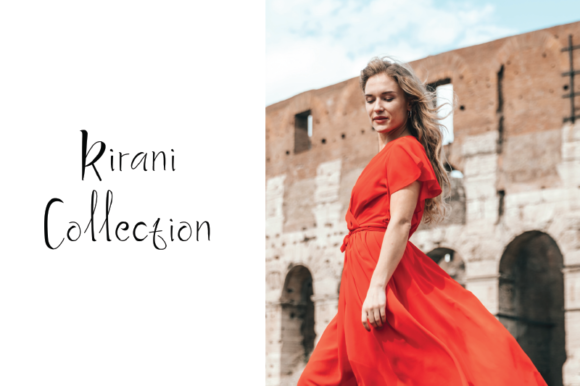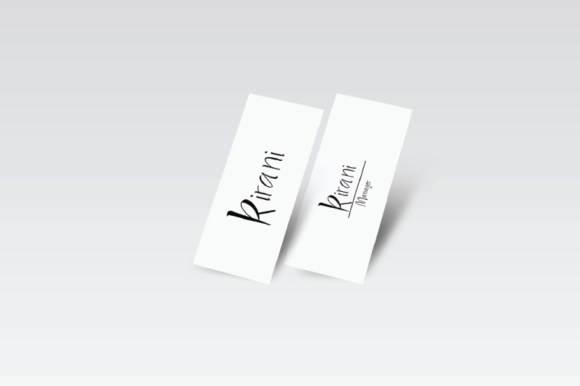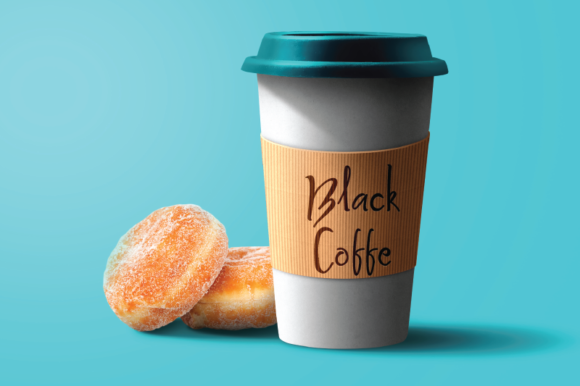
Introduction to Kirani Font
Kirani is a cool and fun script with an authentic vibe.
Key Features of Kirani Font
Why Choose Kirani Font?
Kirani Font offers exceptional quality and versatility, making it a valuable addition to your design toolkit. Whether you’re creating for personal projects or commercial use, Kirani Font delivers professional results.